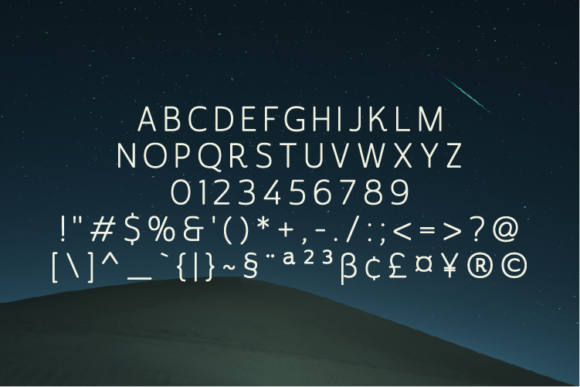
Unlocking the Power of Friendly Typography
Have you ever been stuck on a design project, unable to find the perfect font to convey the tone you want to convey? You’re browsing through font libraries, trying out different styles, and nothing seems to click. Suddenly, you stumble upon a font that makes everything fall into place – its curves are inviting, its proportions are balanced, and it speaks directly to your audience. This is the magic of finding the right font, and for designers, it’s a moment of pure bliss.
One such font that embodies this magic is Argodame Light Font, a rounded sans serif that exudes friendliness and expressiveness. Its modern and contemporary style makes it an excellent choice for various design applications, from headlines and logotypes to branding, books, and motion graphics.
For designers, Argodame Light Font is a valuable asset, offering a unique combination of classic proportions and soft terminals that can elevate any design project. Its versatility and aesthetic appeal make it an essential tool in any designer’s toolkit.
Argodame Light Font Key Features
- Unique Characteristics: This font features a clean, modern design with subtle rounded edges, making it ideal for use in digital products, logos, and branding materials.
- Kerning and Ligatures: The font includes advanced kerning and ligature features, ensuring smooth text rendering and a professional look in various typography settings.
Argodame Light Font Review
First off, let’s talk about what I like about Argodame Light Font. ✨ I think the font’s delicate balance of weight and elegance works beautifully for titles, headings, and body text alike. The font’s clean lines and refined curves give it a timeless feel that’s easy to read. It’s also incredibly versatile and can be used for a wide range of designs, from modern to traditional.
- ✨ Elegant and refined design
- ✨ High readability
- ✨ Versatile and adaptable
However, as with any font, there are some limitations. ⚠️ One of the main concerns is that Argodame Light Font might be too light for certain designs, particularly those with busy backgrounds or complex compositions. This can cause the text to get lost or become difficult to read.
- ⚠️ May not be suitable for busy backgrounds or complex compositions
- ⚠️ May require adjustments to maintain readability
Overall, I think Argodame Light Font is a solid choice for designers looking for a clean, elegant font. While it may not be perfect for every project, its strengths far outweigh its limitations, and with a bit of creative problem-solving, it can be a valuable addition to any design arsenal.
Argodame Light is a versatile font that works well for headings, titles, and body text.
Argodame Light is a great choice for logos, branding, and editorial design.
Argodame Light is a clean and modern font that works well for presentations and documents.
Argodame Light is ideal for:
- Editorial design and publishing
- Presentations and documents